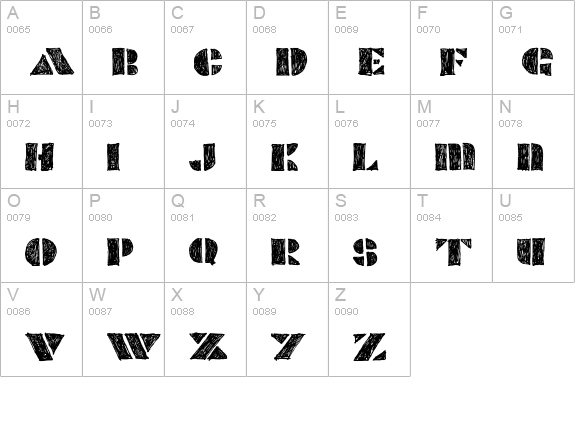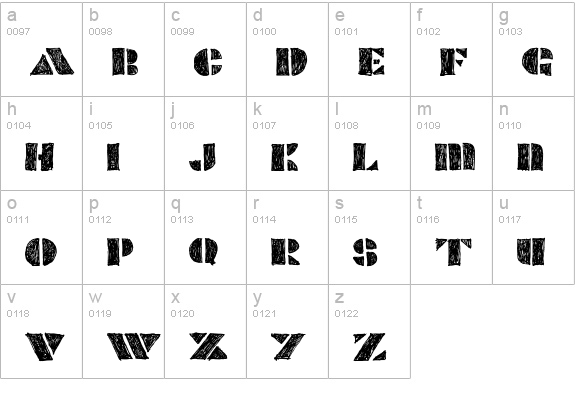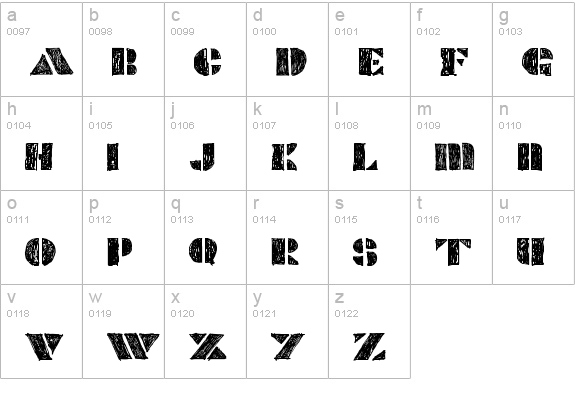
POPCORN SKETCH SKETCH Font Details
Introducing POPCORN SKETCH SKETCH font, a delightful and whimsical typeface that will bring a touch of playfulness to your designs. With its hand-drawn appearance and lively characters, this font is perfect for adding a fun and carefree vibe to any project. POPCORN SKETCH SKETCH font is not only aesthetically pleasing but also incredibly versatile. Whether you are designing a children's book, creating eye-catching posters, or adding a quirky touch to your social media graphics, this font will effortlessly capture attention and leave a lasting impression. One of the best things about POPCORN SKETCH SKETCH font is that it is freely available to download at FontsMarket.com. This means that you can easily access this fantastic font and start incorporating its charm into your designs without any hassle. It's a wonderful opportunity to enhance your creative endeavors without having to worry about any additional costs. The characters in POPCORN SKETCH SKETCH font are carefully crafted with unique and quirky details. From the imperfectly drawn lines to the charming irregularities in each letter, this font exudes an organic and handmade feel that adds warmth and personality to your designs. To further enhance its versatility, POPCORN SKETCH SKETCH font offers a wide range of alternate characters and ligatures. These additional features allow you to experiment with different letter combinations and create truly custom and captivating designs. Whether you are a professional designer or a hobbyist looking to add a touch of whimsy to your projects, POPCORN SKETCH SKETCH font is the perfect choice. Download it for free at FontsMarket.com and let your creativity soar with this delightful and playful typeface.